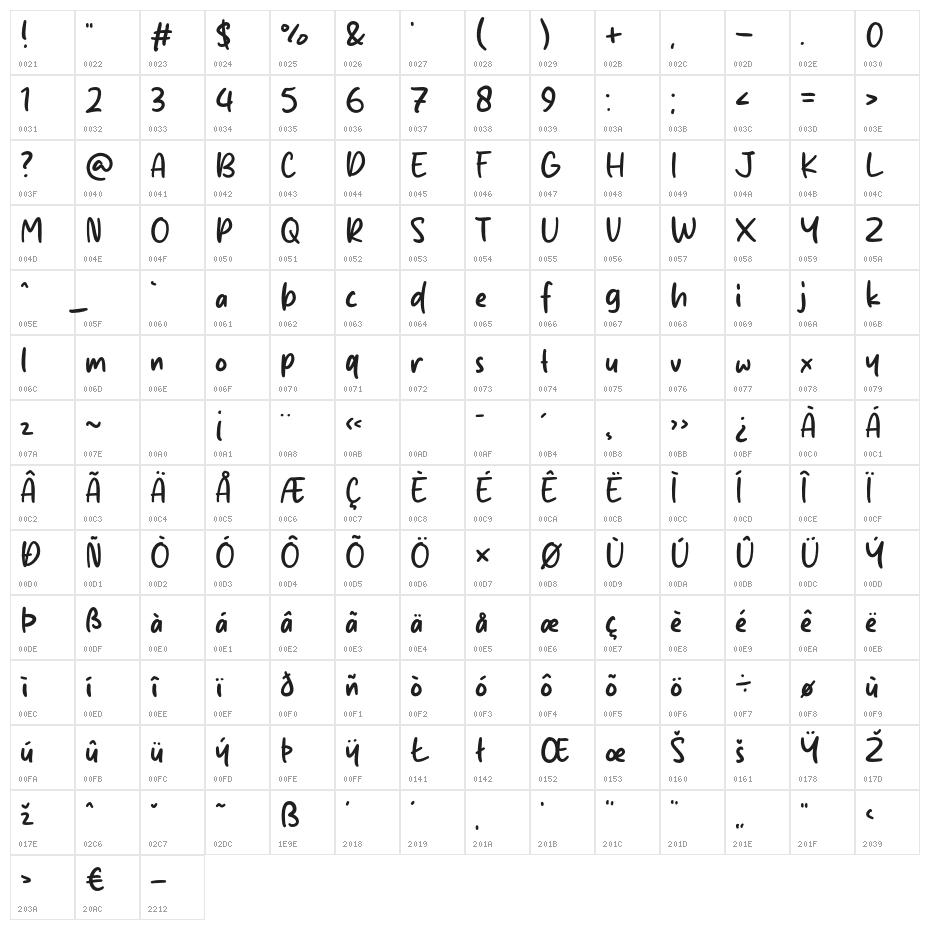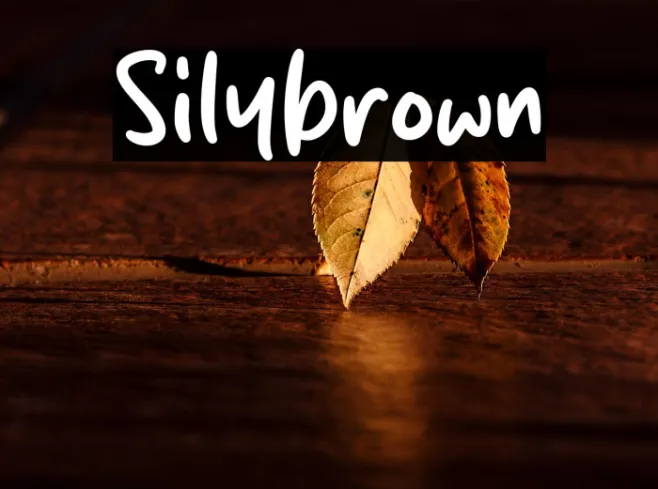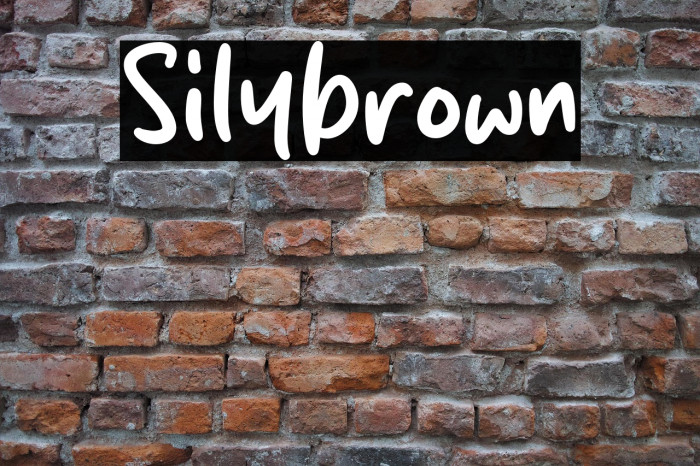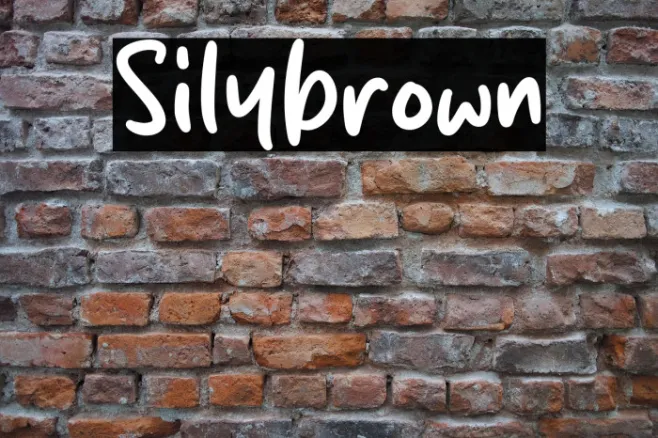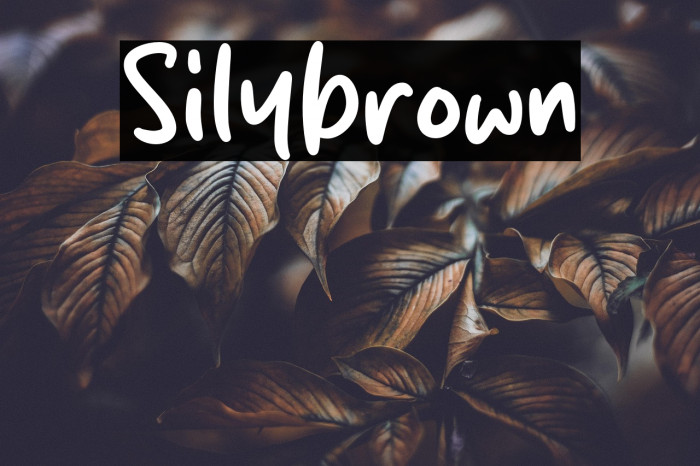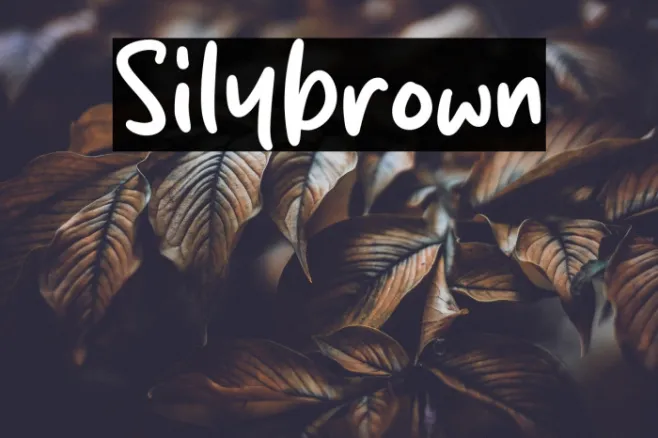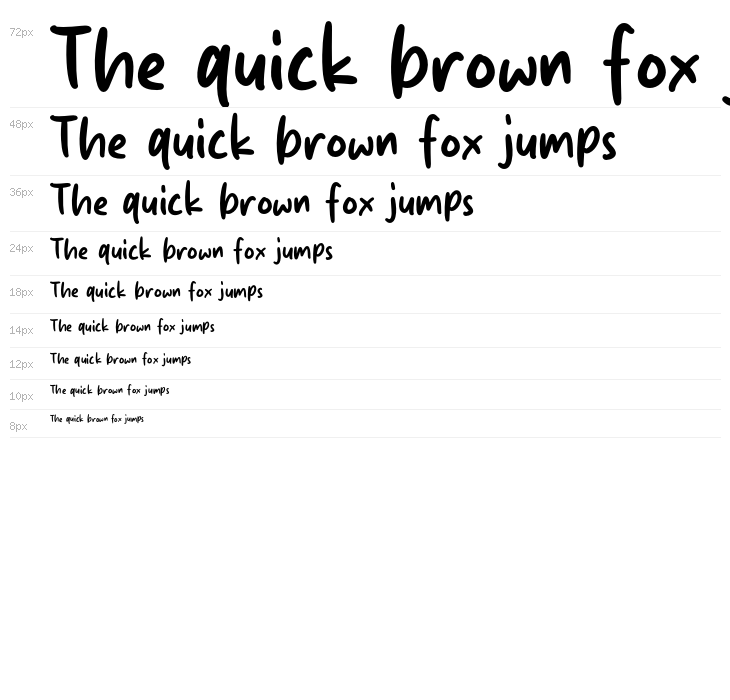
Silybrown Font
Silybrown Description
A playful, handwritten font with rounded edges and a casual style.
| Use Case | Informal text, playful designs. |
| Proposed Projects | Greeting cards, children's books, informal branding. |